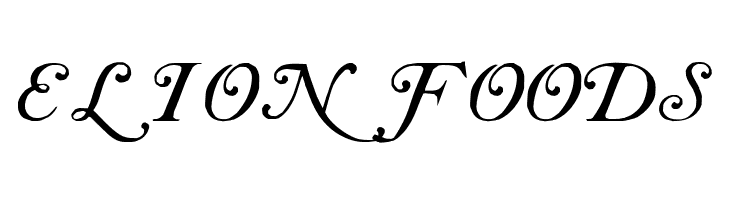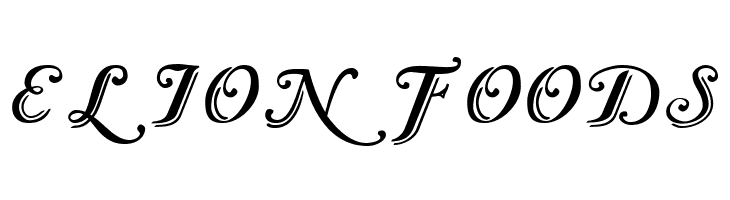
CaslonGraphique-Opti Font
A bold, high-contrast serif font with dramatic strokes and sharp serifs.
Caslon Antique Font
Font by Alan Carr
A vintage, distressed font with an antique, hand-crafted appearance.
CaslonTwoBlackSSK Font
A bold, high-contrast serif font with a classic and authoritative style.
CaslonCP Font
A classic serif font with elegant strokes and moderate contrast, exuding sophistication.
Caslon-Bold Font
A bold, classic serif font with pronounced serifs and slight stroke contrast.
CaslonOpenFaceSSK Font
A classic serif font with an open face style, offering elegance and sophistication.
CaslonBlackSSK Font
A bold, classic serif font with high contrast and pronounced serifs.
Libre Caslon Display Font
A classic serif typeface with high contrast and elegant proportions.
Caslon Initials Font
Font by Paul Lloyd
An elegant and ornate font with flowing, decorative characters.
CaslonSSK SemiBold Font
A classic serif font with semi-bold weight, offering elegance and readability.
LibreCaslonText-Regular Font
A classic serif typeface with elegant details and balanced proportions.
CaslonTwoSSK Bold Font
A bold, classic serif font with strong strokes and elegant serifs.
CaslonSwashSCapsSSK Italic Font
An elegant serif font with swash capitals and an italic style, perfect for formal uses.
CaslonSwashBlackSCapsSSK Italic Font
An elegant, swash-style italic font with decorative and flowing strokes.
Libre Caslon Text Bold Font
A bold, classic serif font with strong strokes and elegant serifs.
Libre Caslon Text Font
A classic serif font with elegant and balanced proportions.
Caslon Calligraphic Initials Font
Font by Paul Lloyd
An elegant calligraphic font with ornate swashes and flourishes.